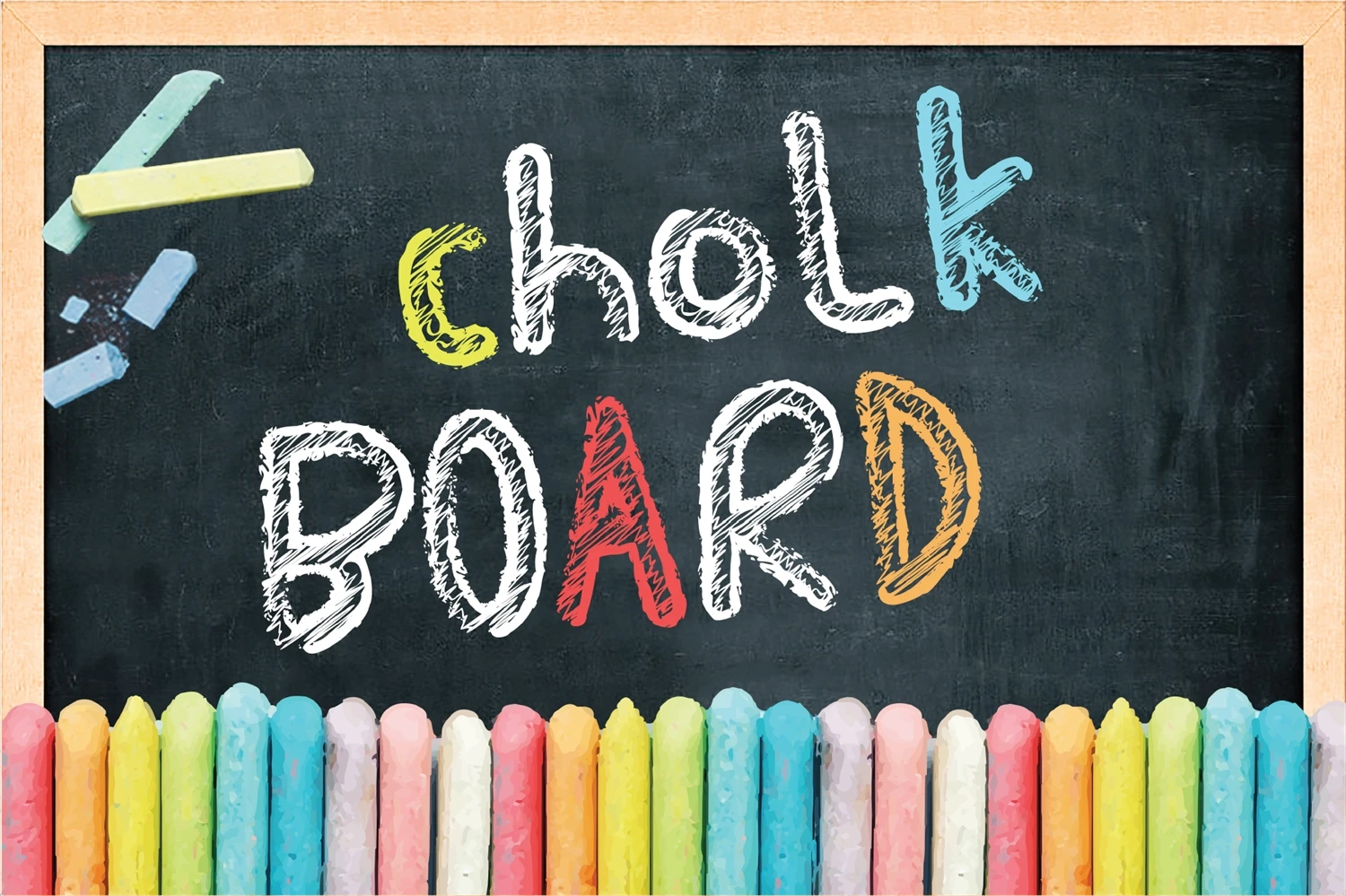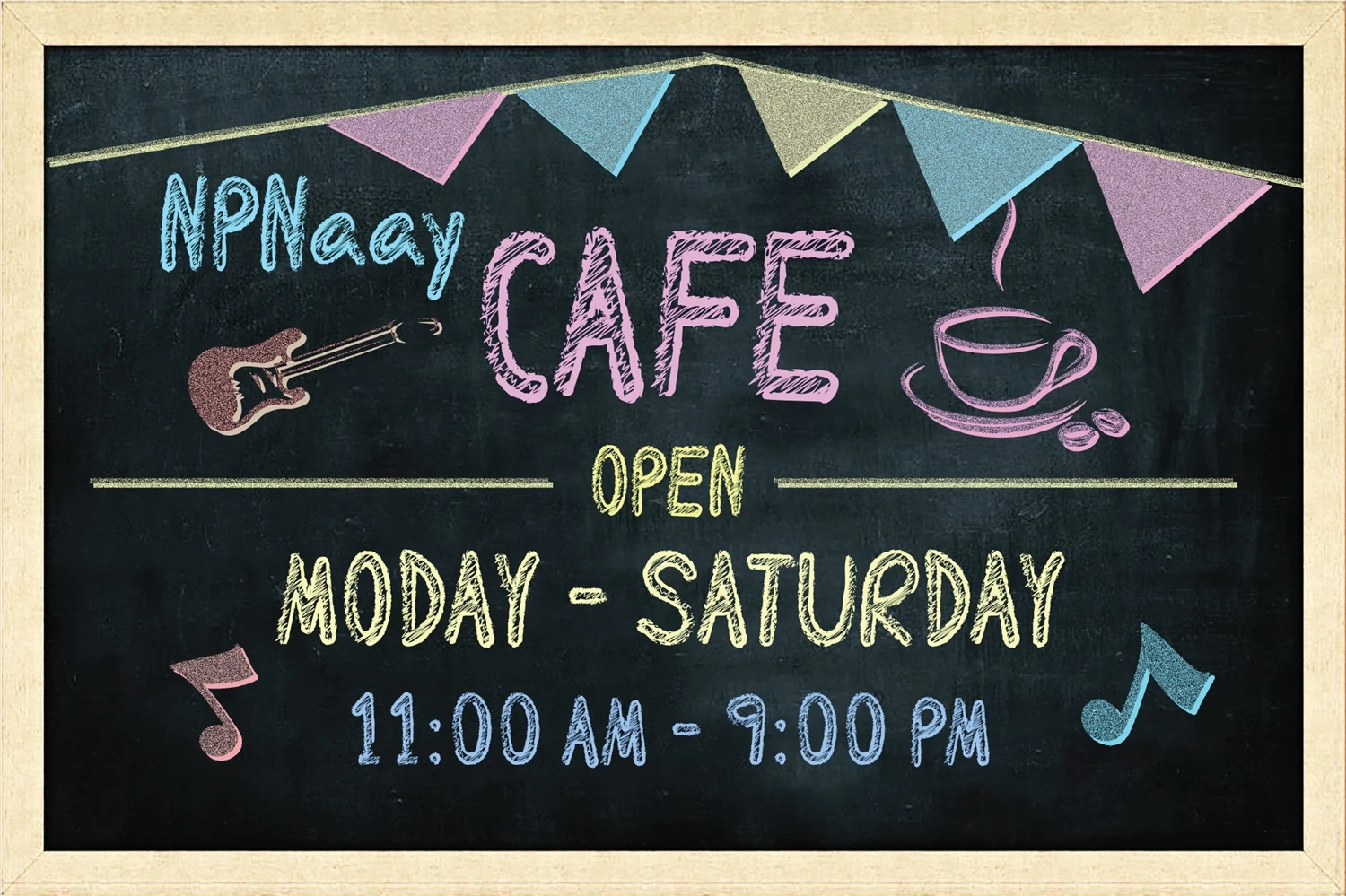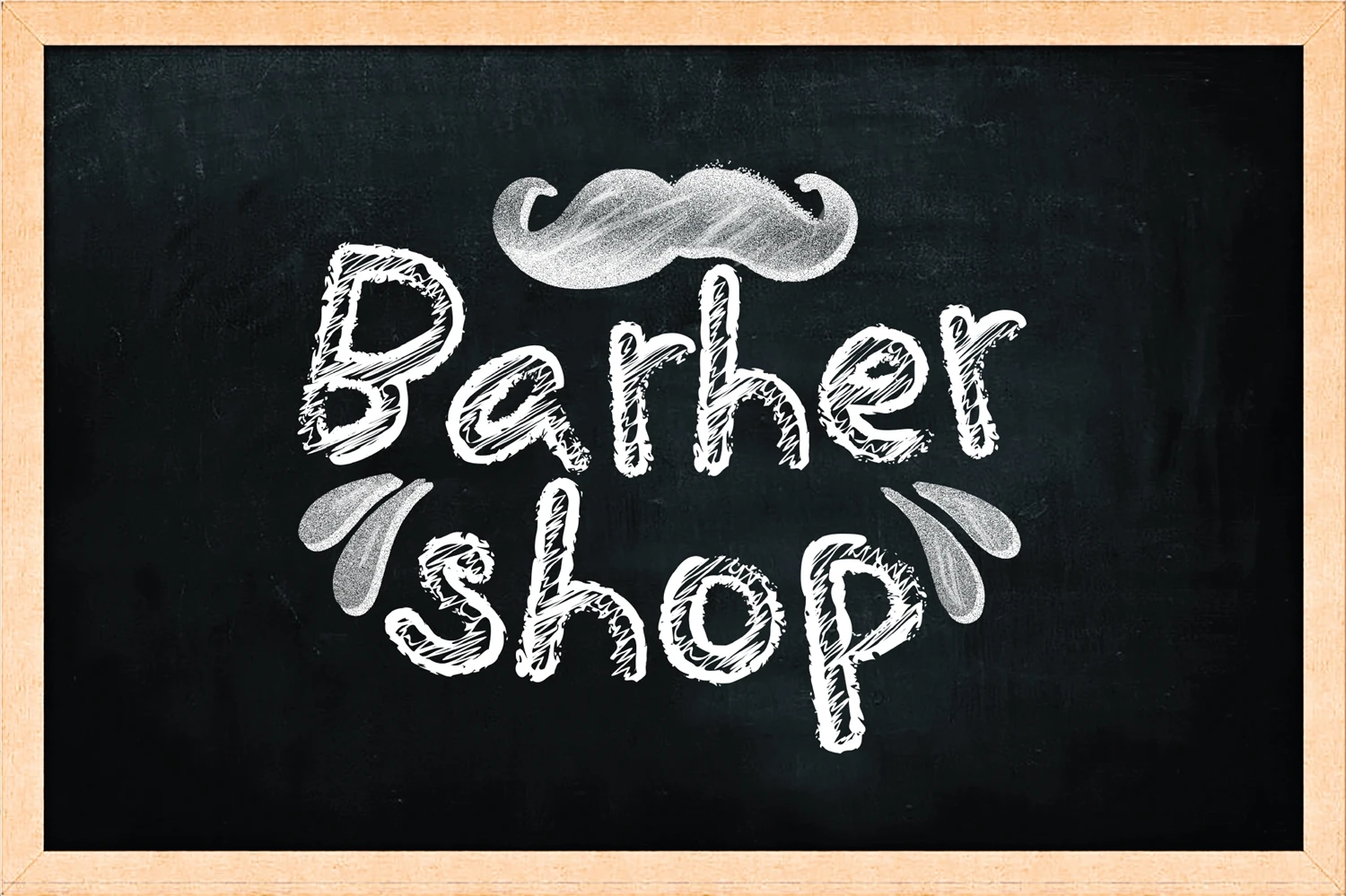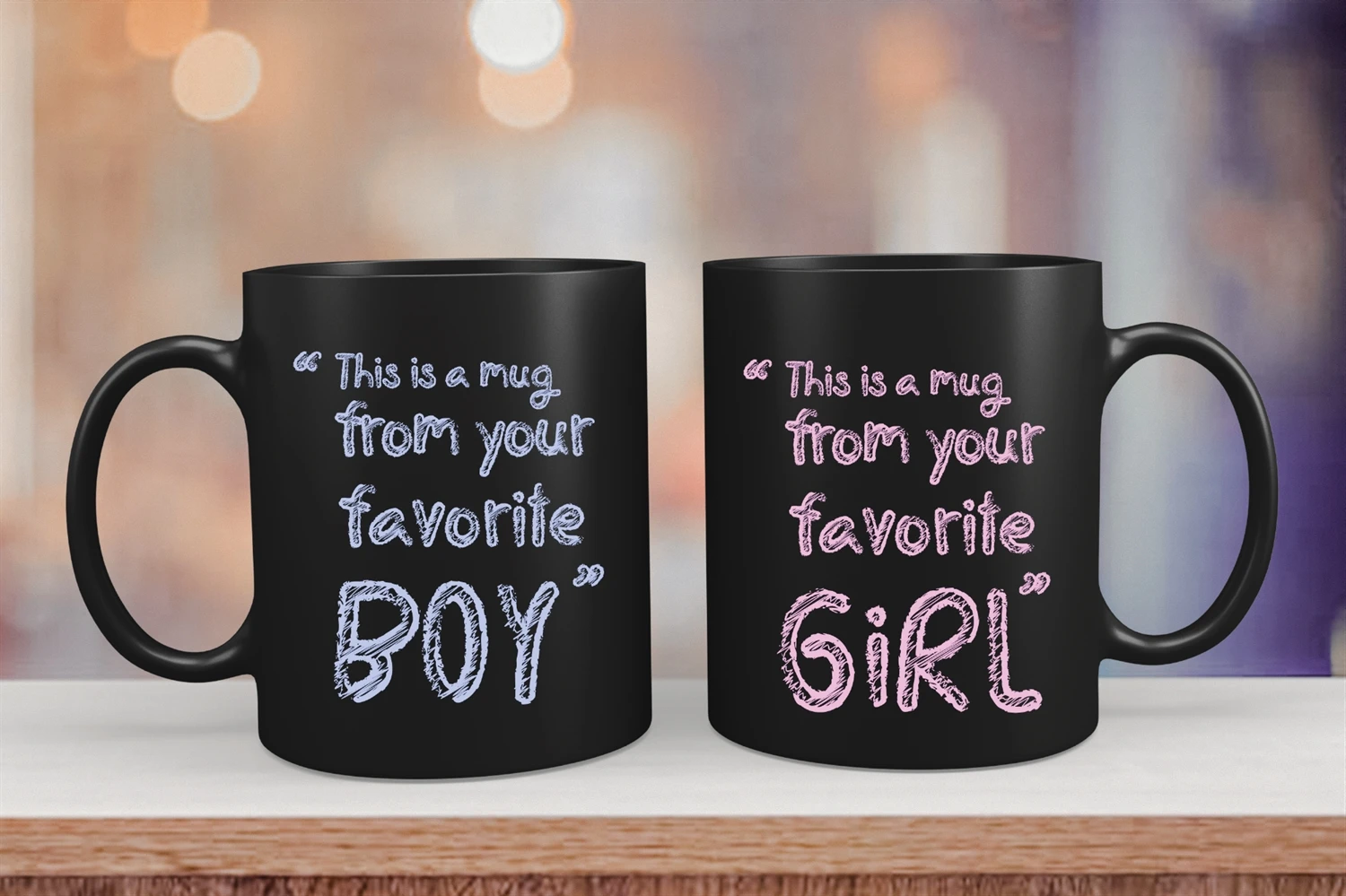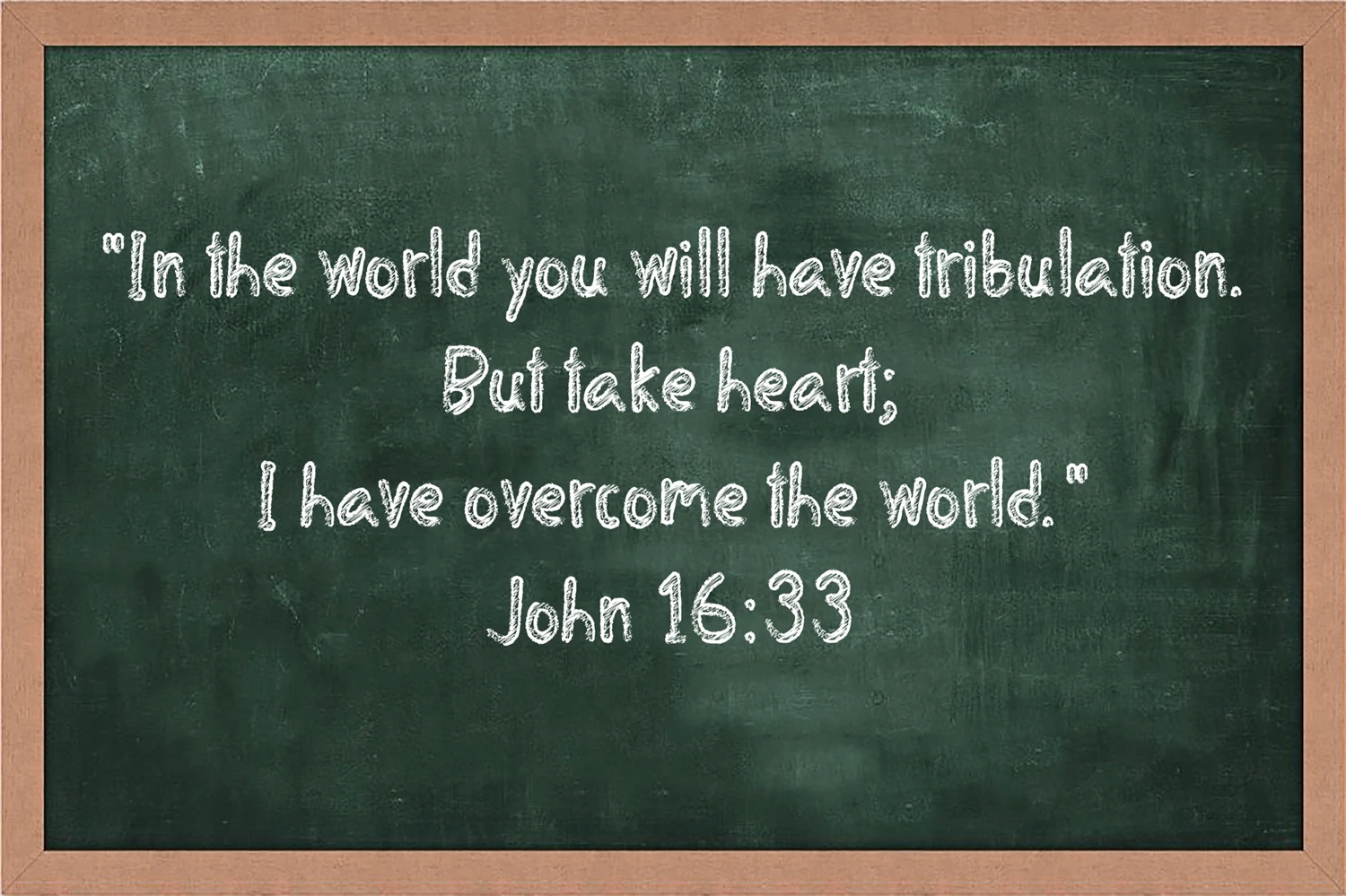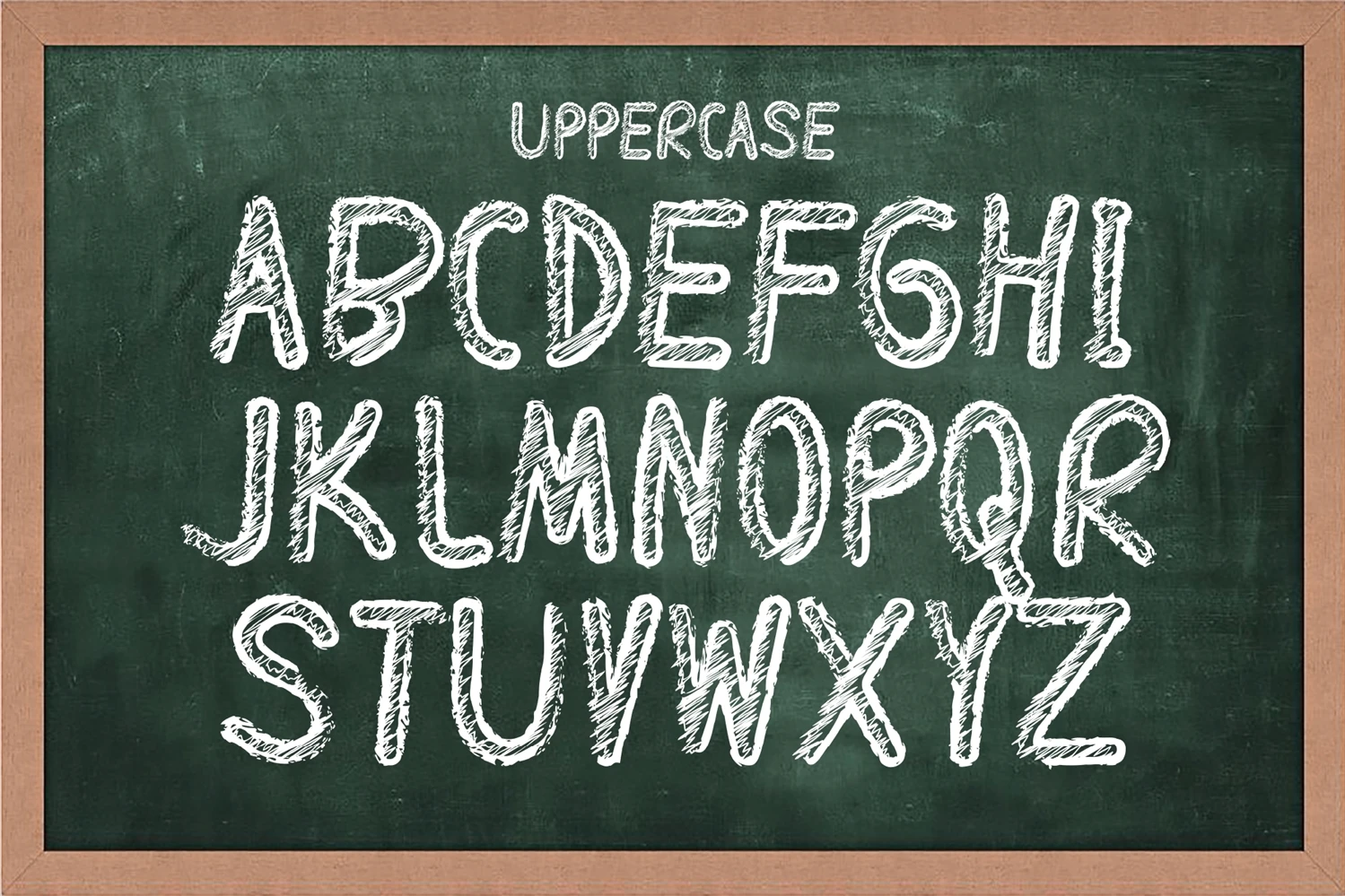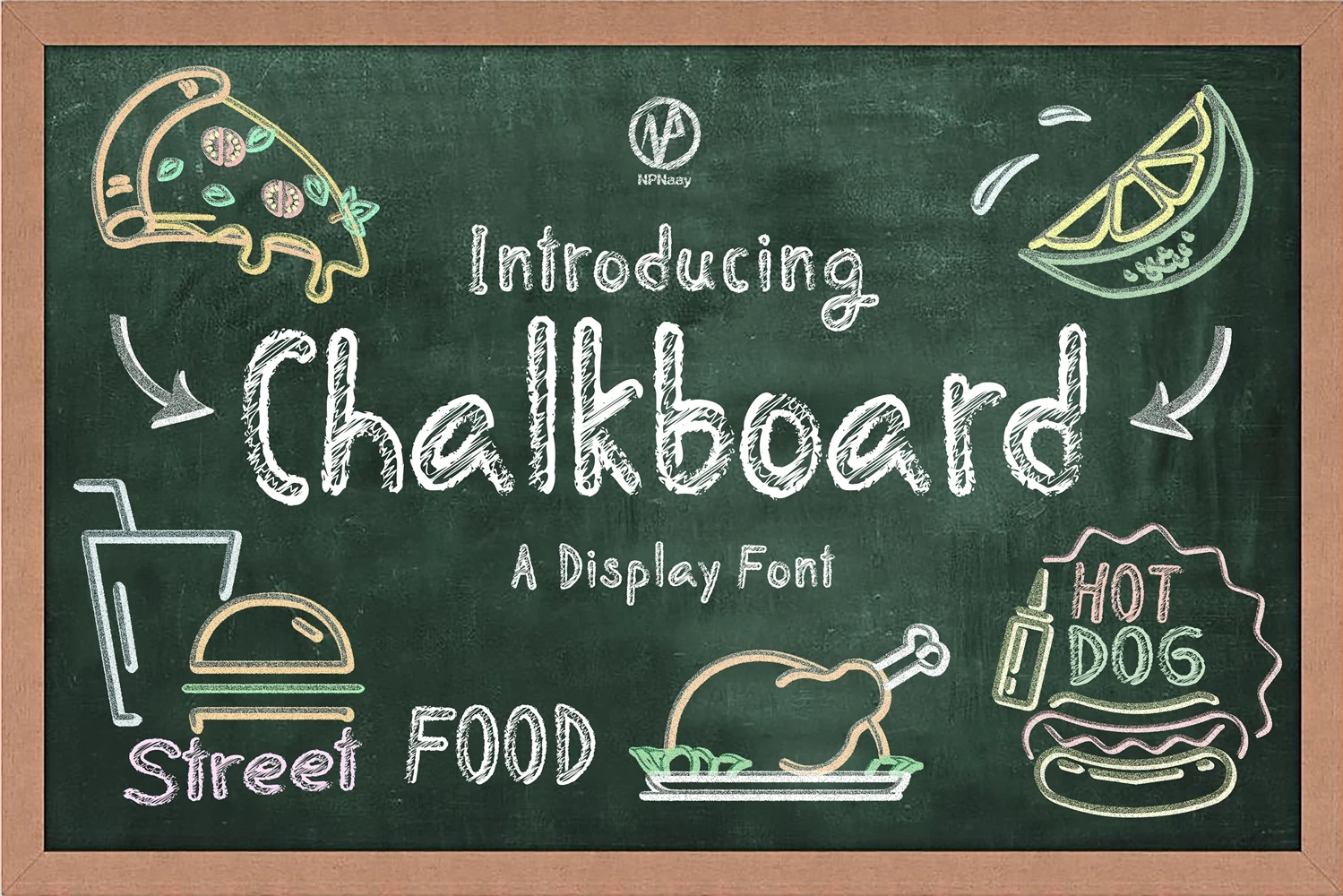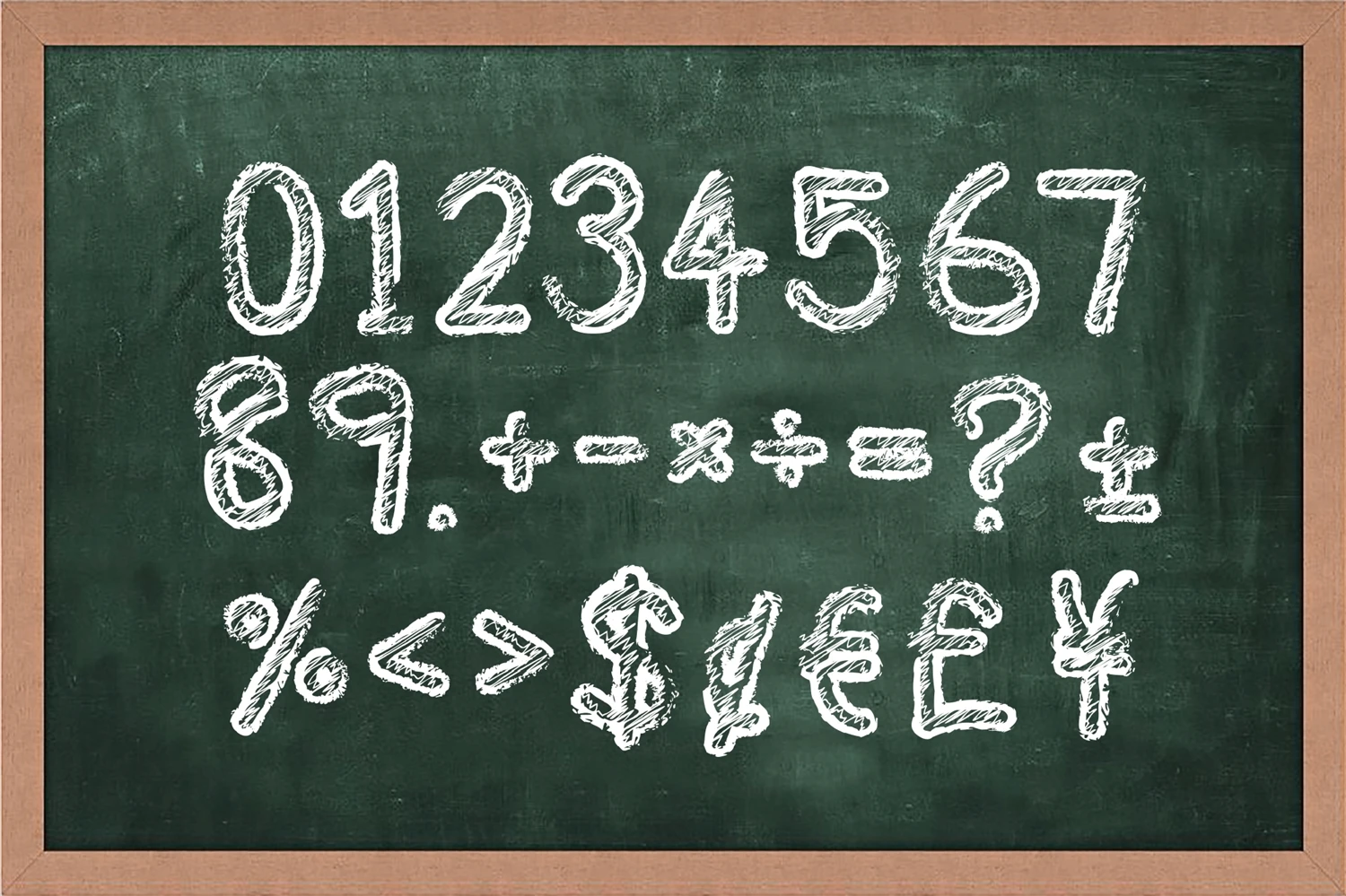
Chalkboard is a cute and friendly handwritten font that grabs attention. Whether youre using it for crafts, digital design, presentations, or making greeting cards, this font has the potential to become your favorite go-to font, no matter the occasion!